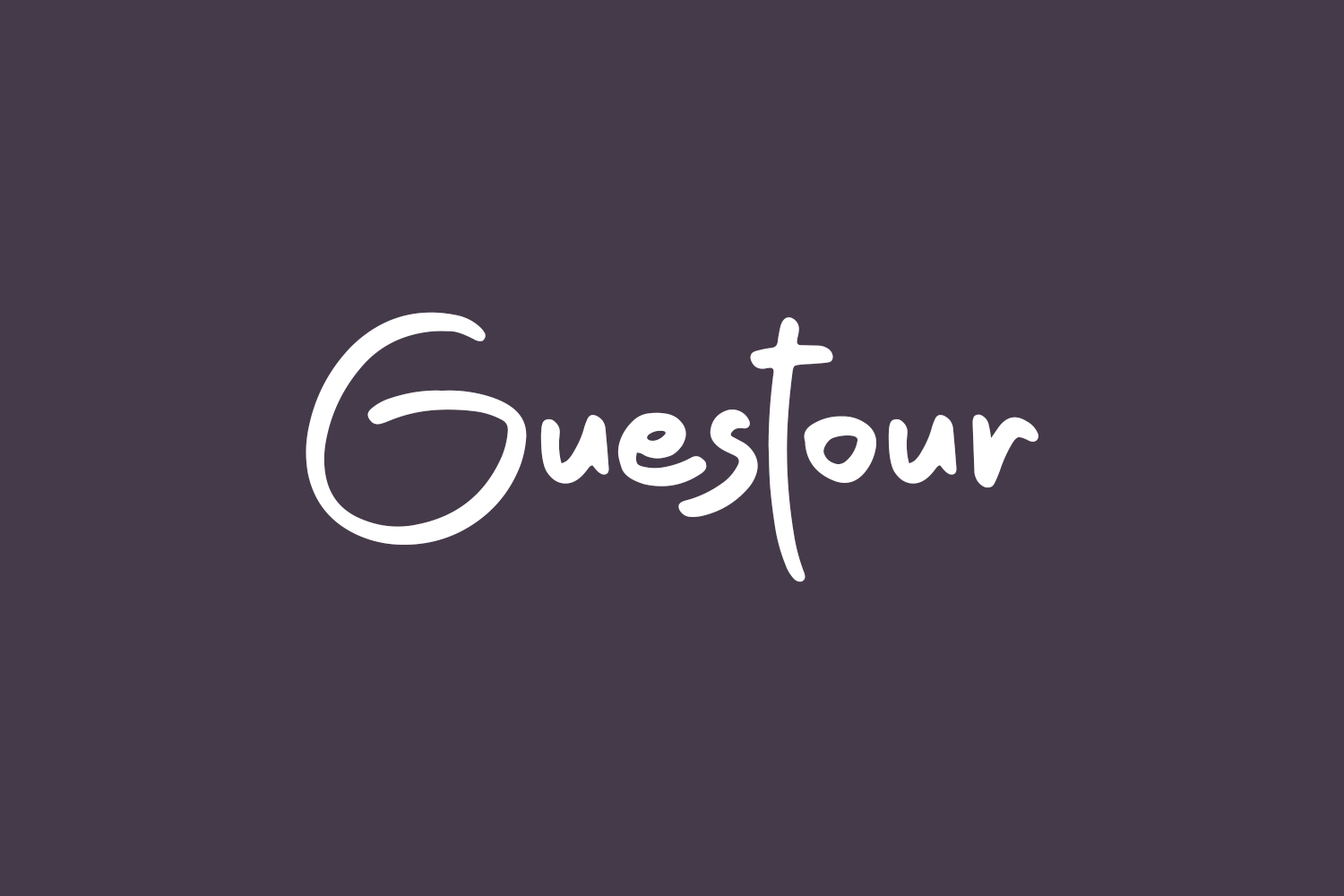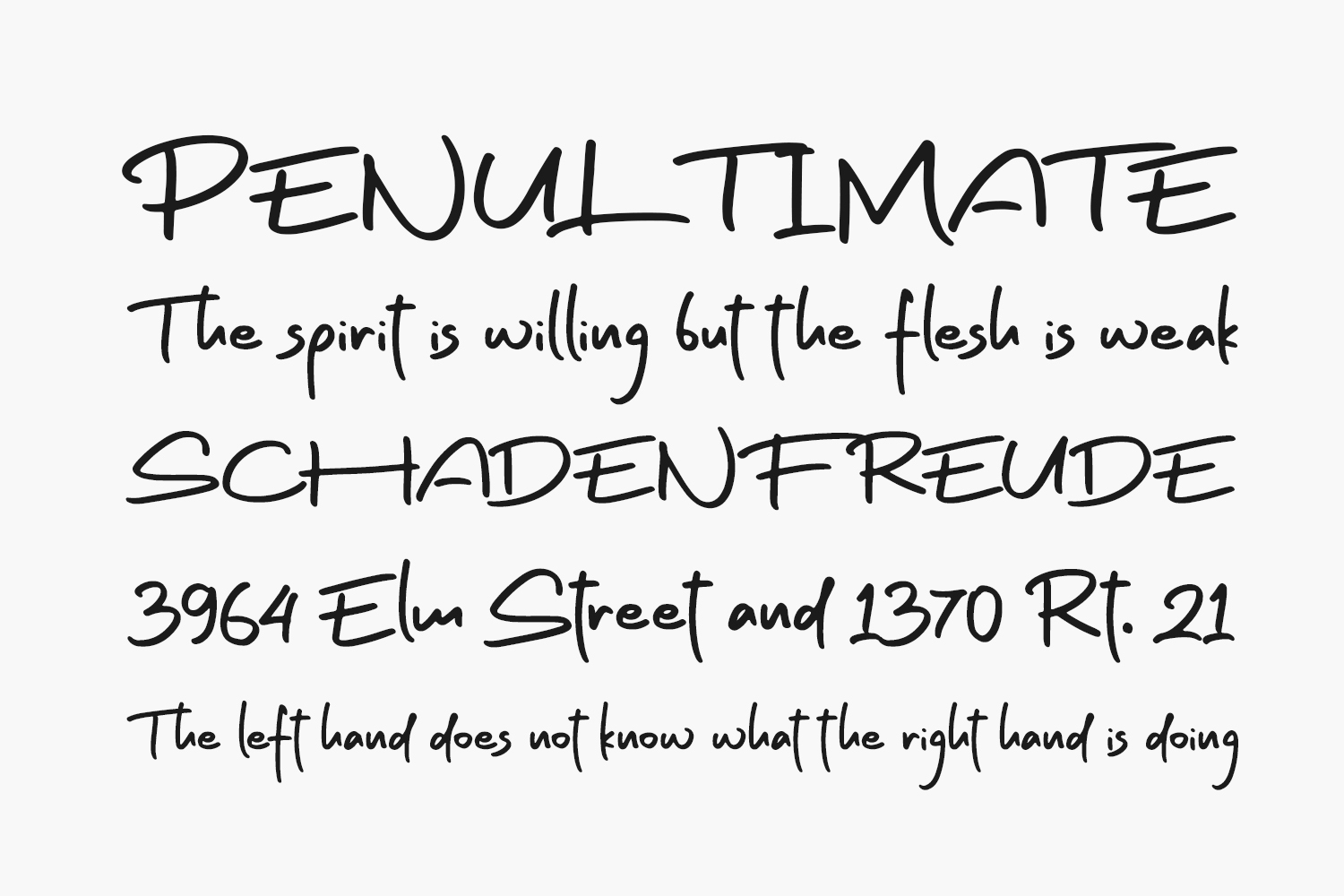
Guestour Free Font is a cute and sweet handwritten font. This versatile script font has a wide spectrum of applications ranging from greeting cards to headlines and is guaranteed to add a romantic feel to your next project. Guestour Free Font was designed by Fontherapy and is free for personal use only. Please purchase the full version for commercial use.